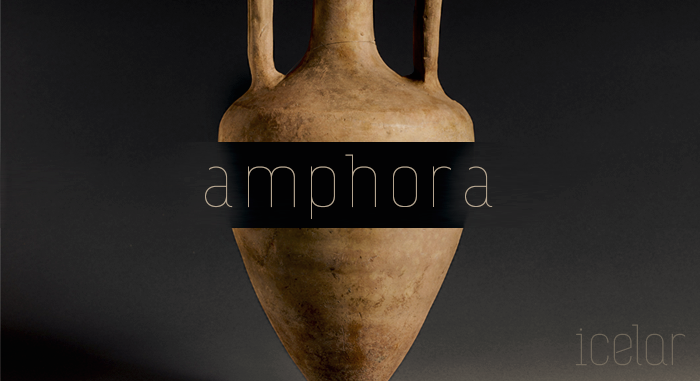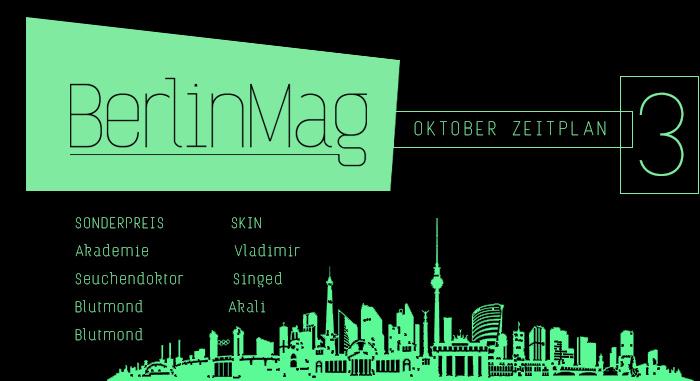
Hey! ¿What's up with line spacing in the preview?
Great! Looks like beate made this. 10/10
Very professional, love the k.
Love the way this is going.